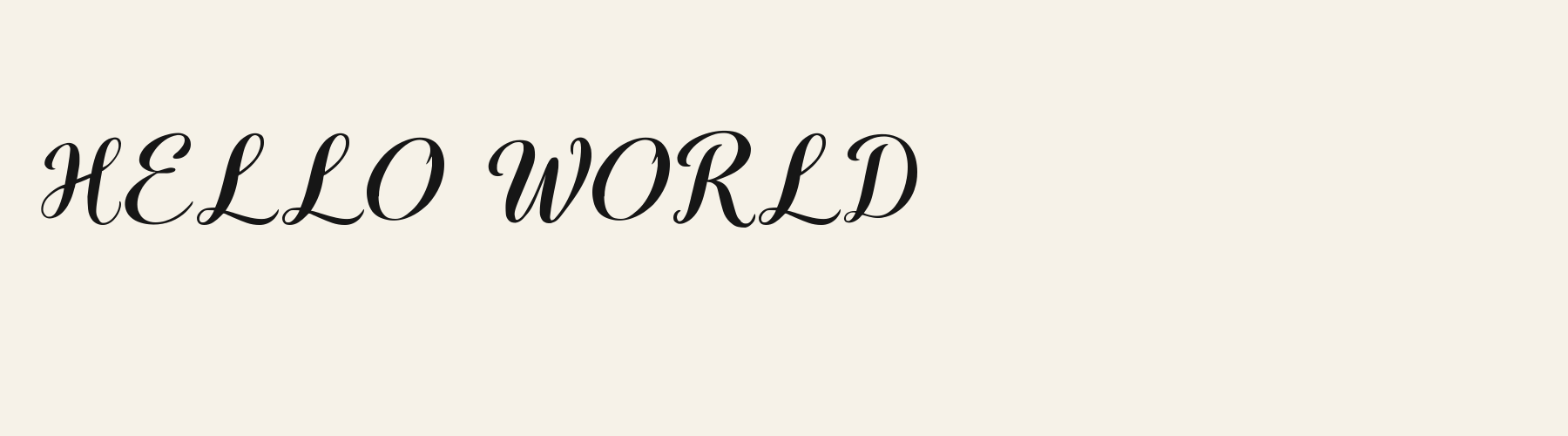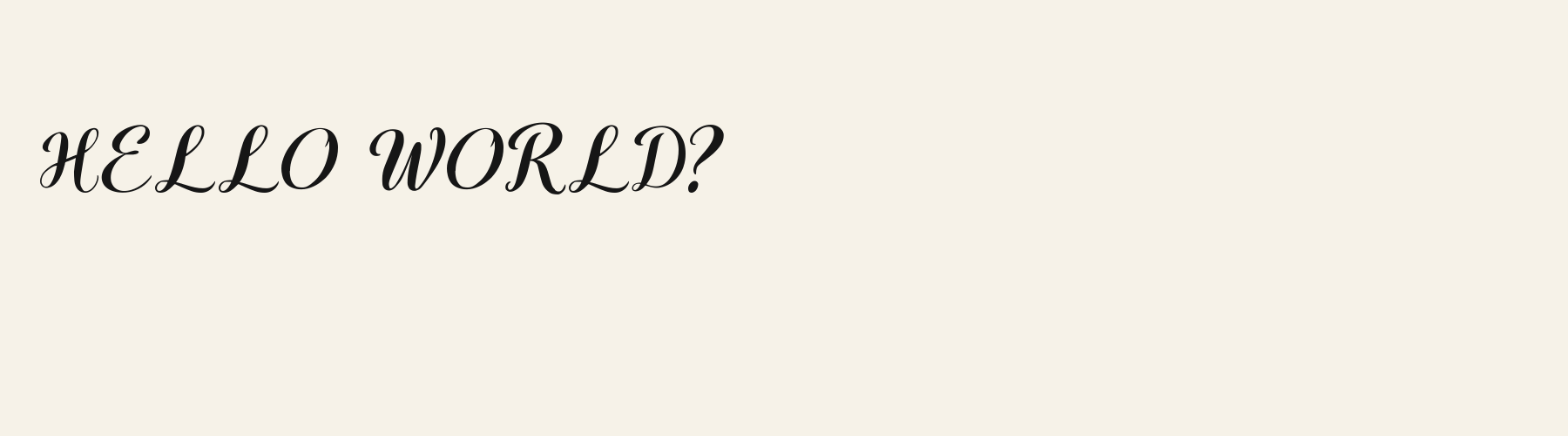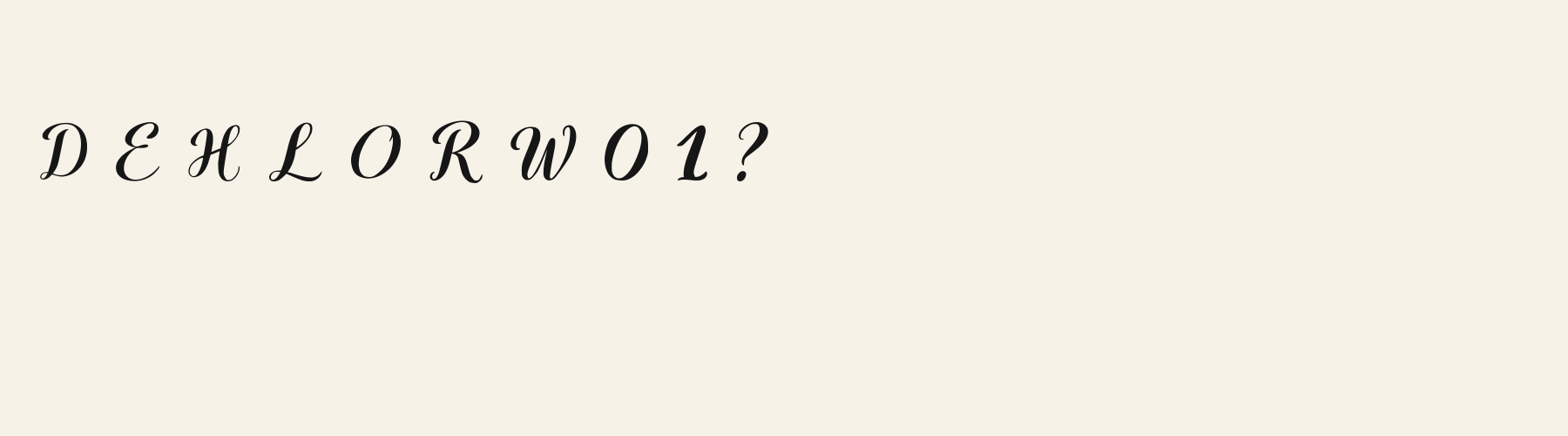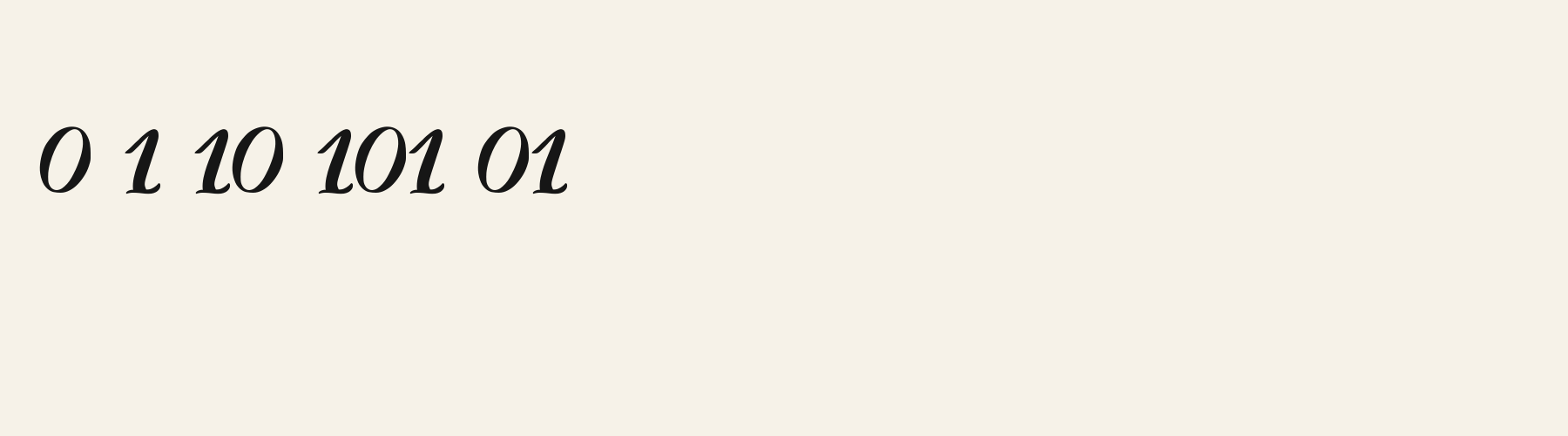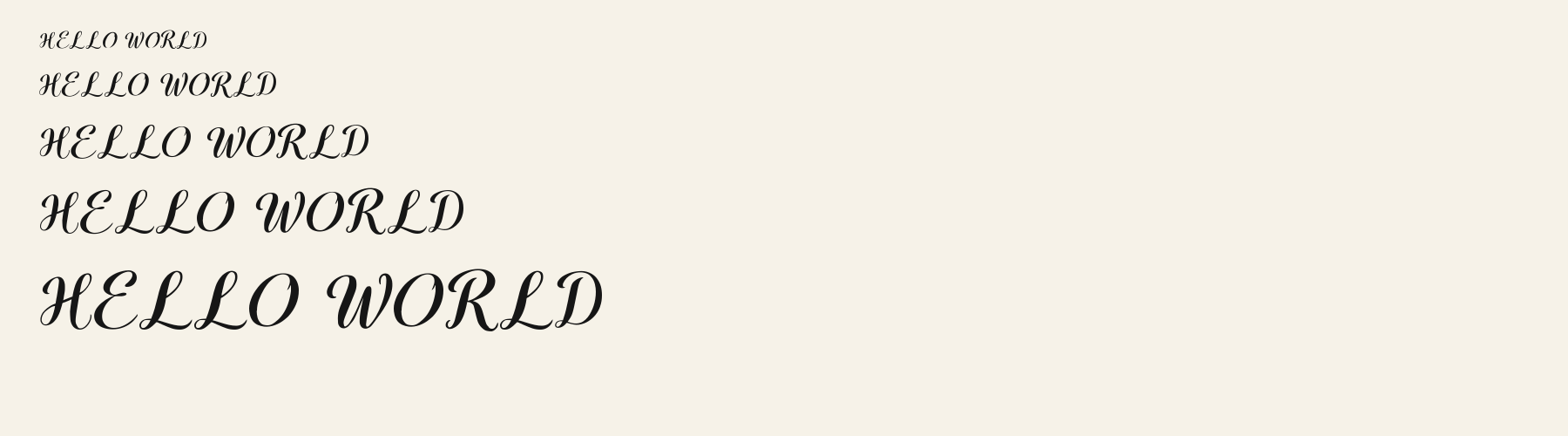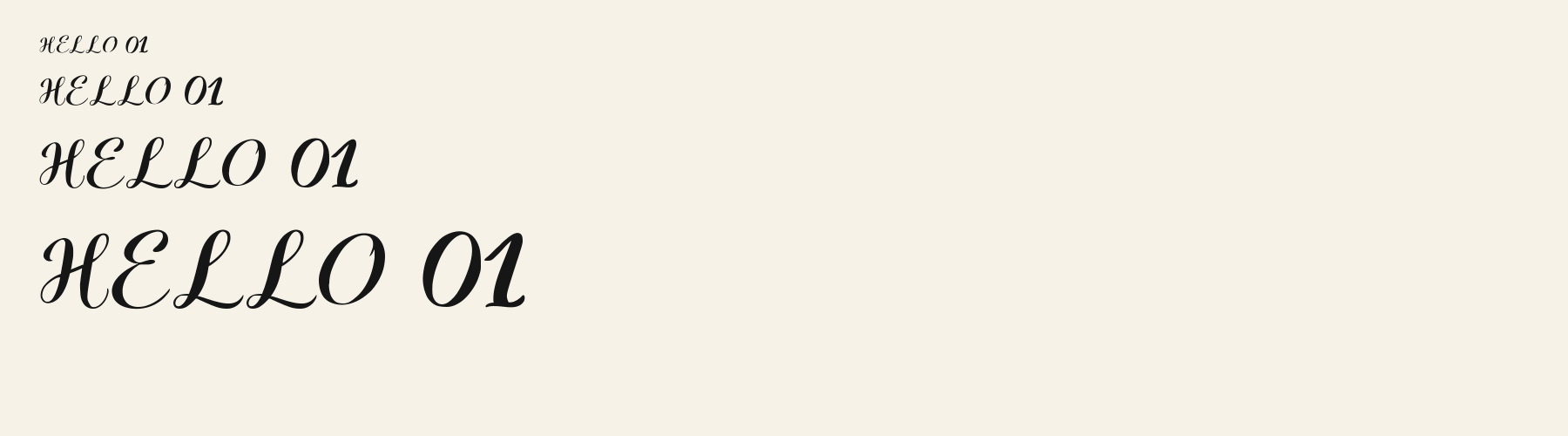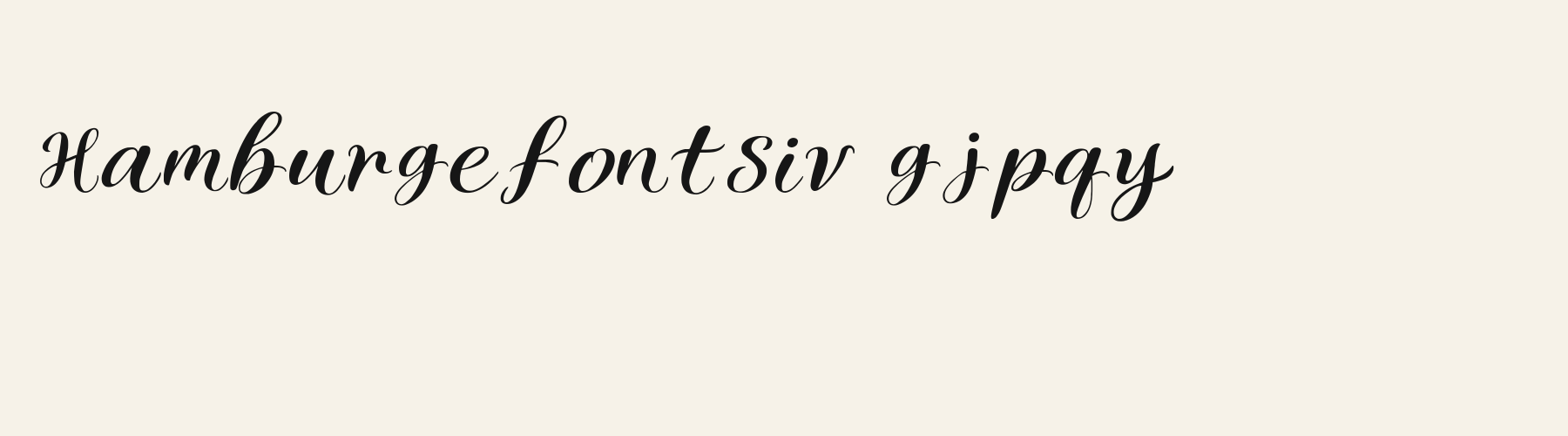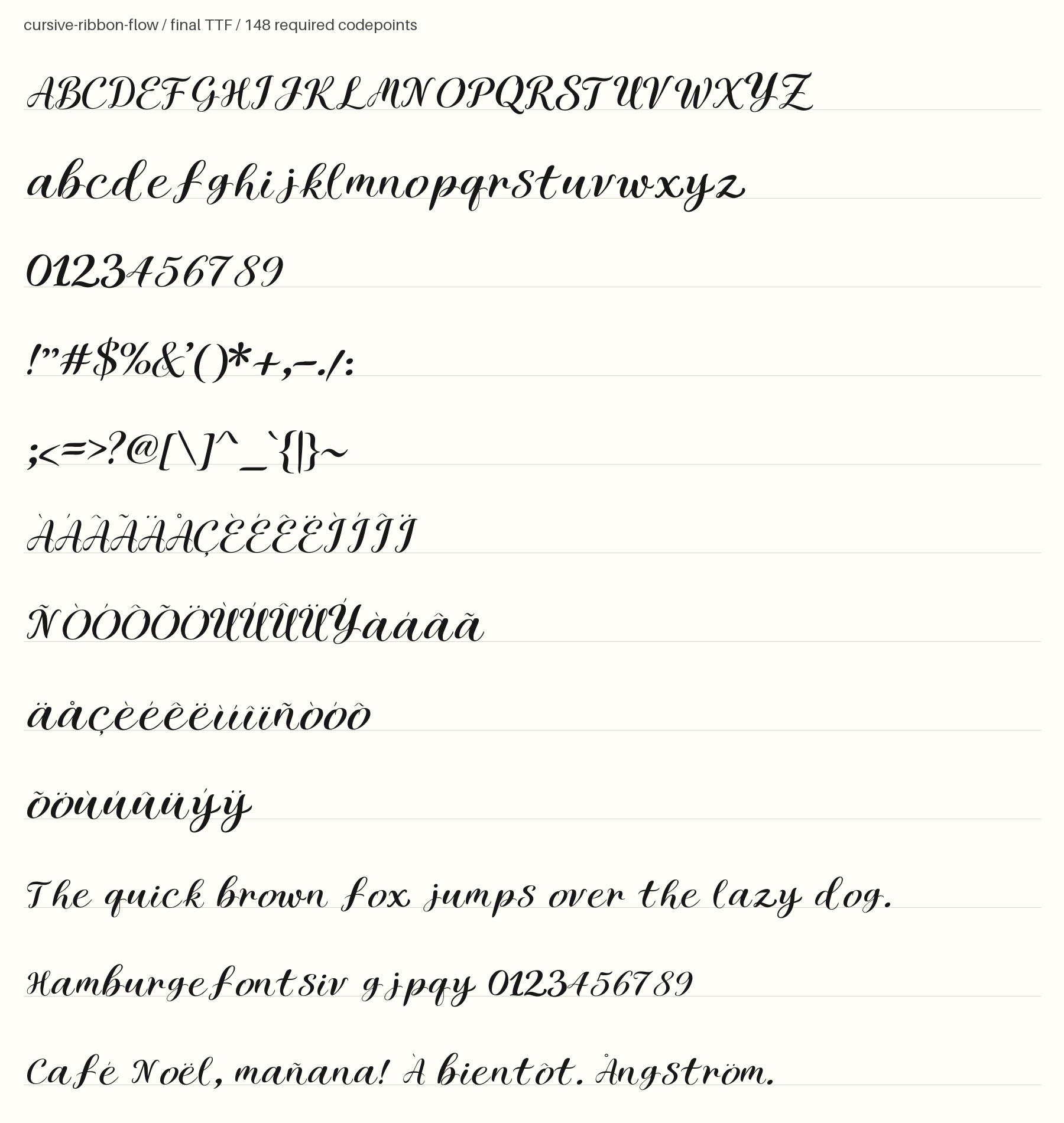
Cursive Ribbon Flow is a packaging and short headings. Flat nib ribbon stroke with moderate contrast and clean solid edges. Best for packaging and short headings.
Includes all 95 printable Basic Latin characters and 148 glyphs in total.
Verified language coverage: English (Basic Latin)